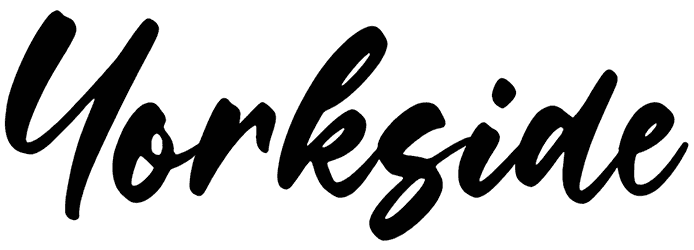
Yorkside Font
Since the writing and ornamentation in this calligraphy font are connected, it works well for casual projects like advertisements, textbooks, packaging, apparel, etc.